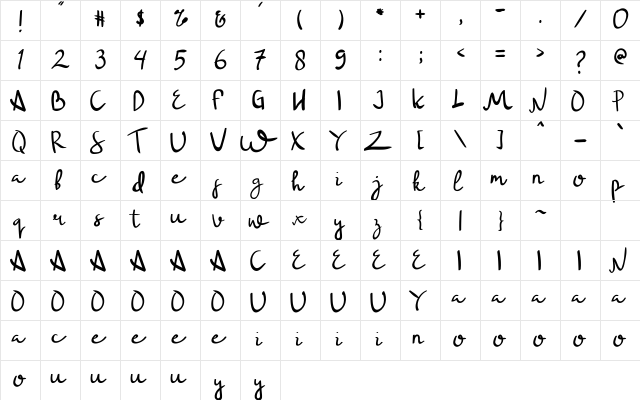
Bersama Selamanya Regular
Design Context for Bersama Selamanya Typeface
Bersama Selamanya is a composed and adaptable typeface that performs quietly and consistently across a wide range of design contexts.